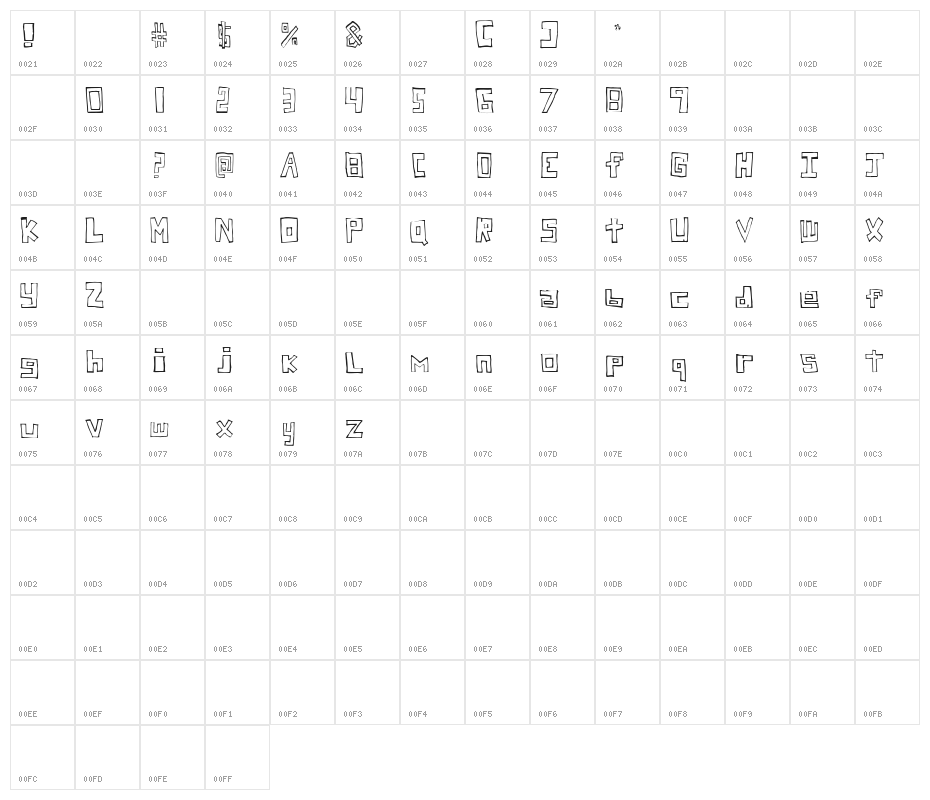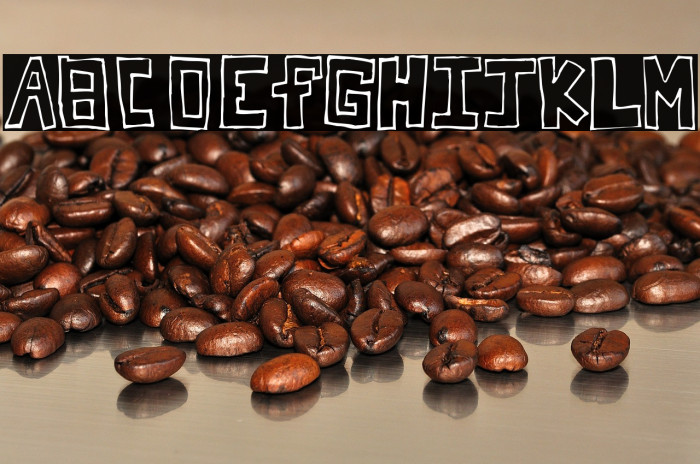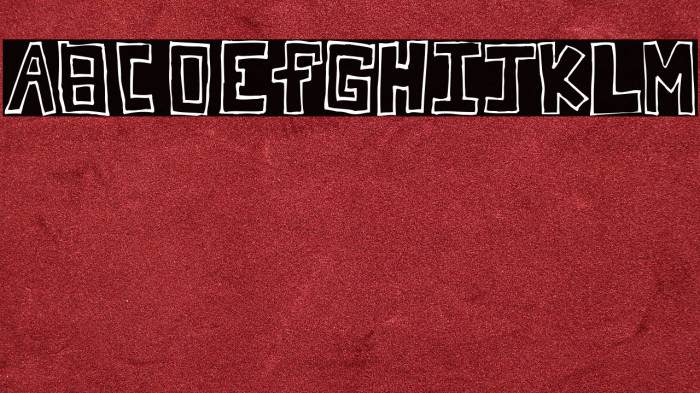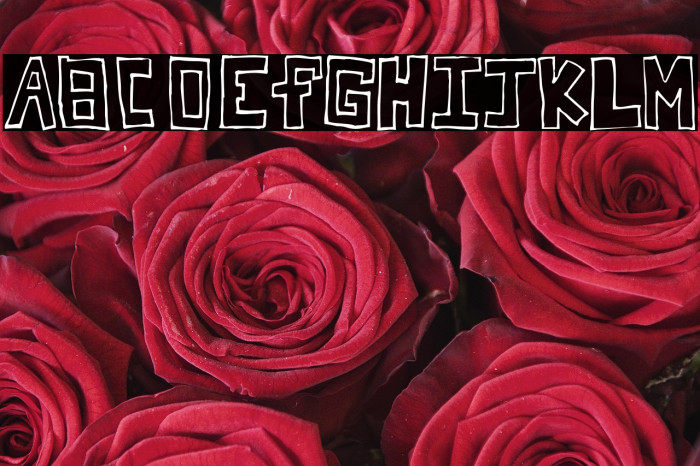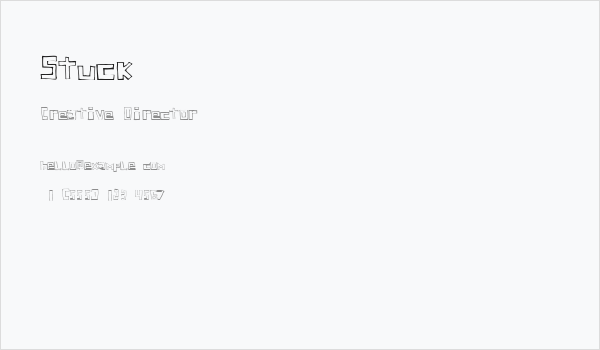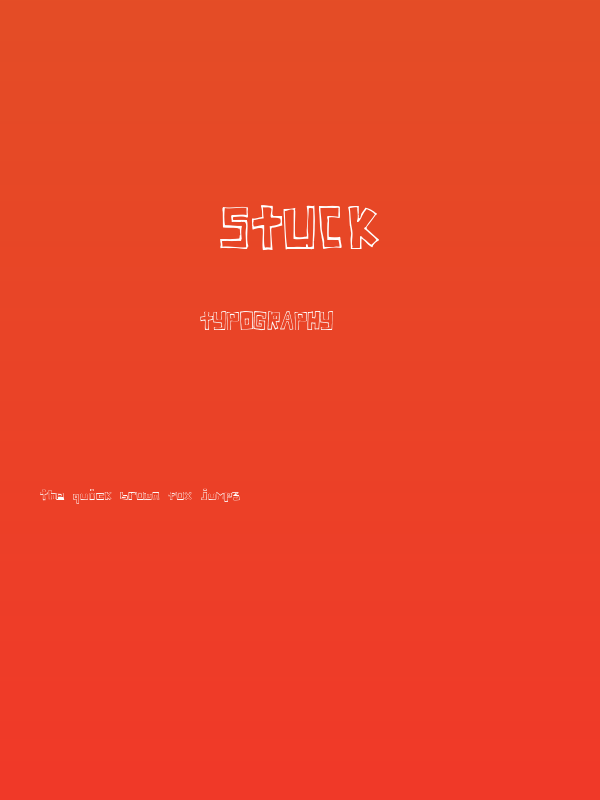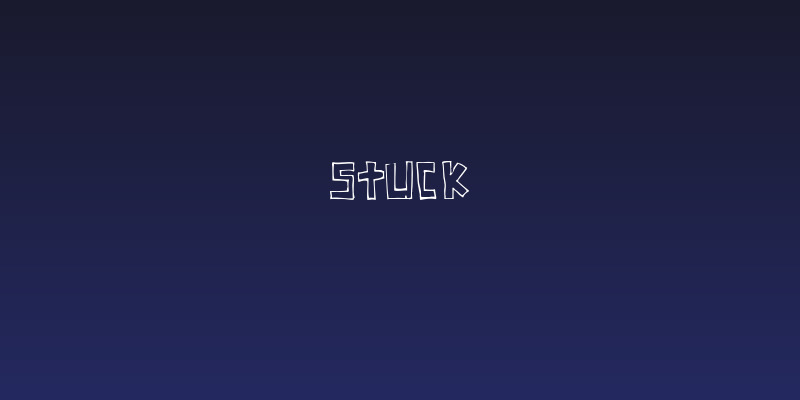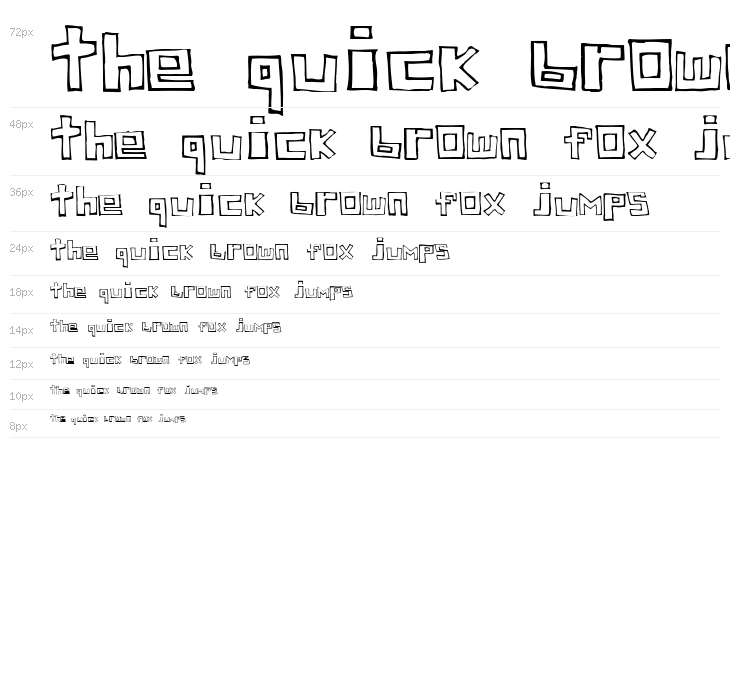
Stuck Font
Stuck Description
This font features a playful and irregular hand-drawn style, characterized by its bold and uneven lines. The letters have a quirky, cartoonish appearance with a slightly jagged edge, giving them a unique and informal look. The uppercase and lowercase letters maintain a consistent style, with wide, open counters and a distinctive, almost doodle-like quality. The numbers and special characters follow the same aesthetic, ensuring a cohesive appearance across all glyphs. This font's charm lies in its imperfect, organic feel, making it stand out in creative and casual designs.
| Overall Style | Playful, Quirky, Hand-drawn |
| Use Case | Headlines, Posters, Creative projects |
| Proposed Projects | Ideal for children's books, comic strips, playful branding, and creative posters. |